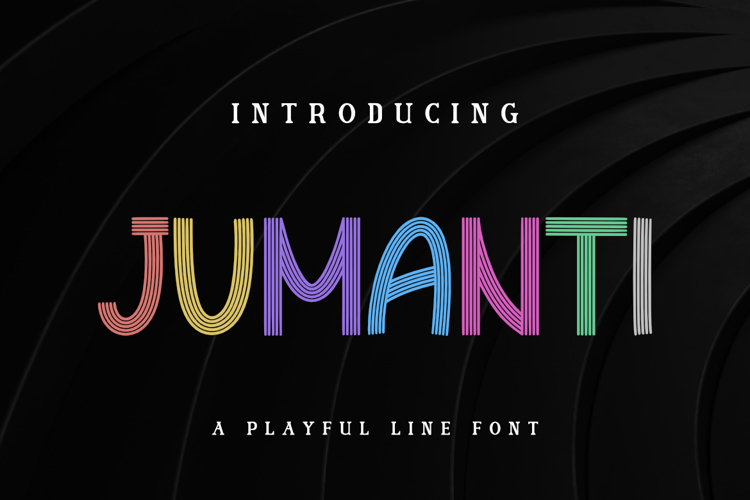
Jumanti Font
Jumanti Playful Line Font, inspired by decorative typography. This font is made with a high premium quality level which you can use as flyers, quotes, posters, banners, packaging, merchandise, logotypes and much more.